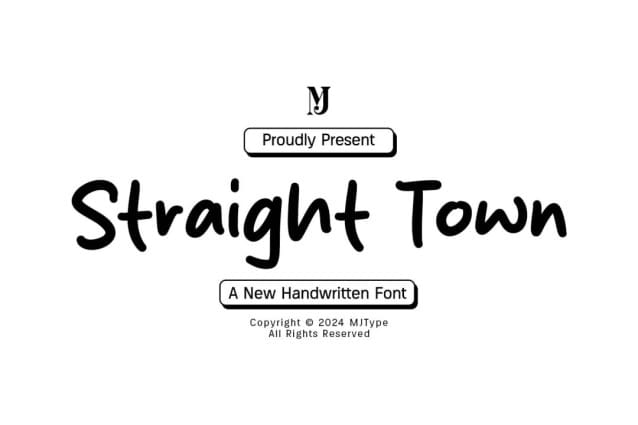
Straight Town Font
Straight Town Font is a sweet and simple handwritten font. Its natural and unique style makes it incredibly fitting to a large pool of designs. The only limit is your imagination!